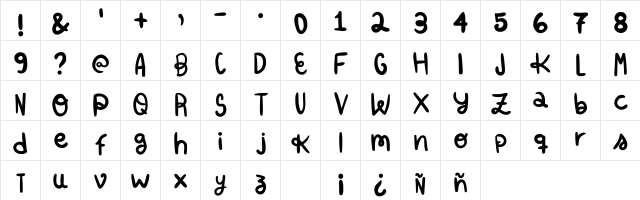
Simon Regular
Design Context for Simon Typeface
Simon is a composed and adaptable typeface that performs quietly and consistently across a wide range of design contexts.